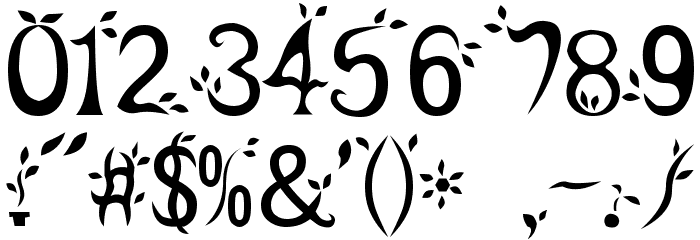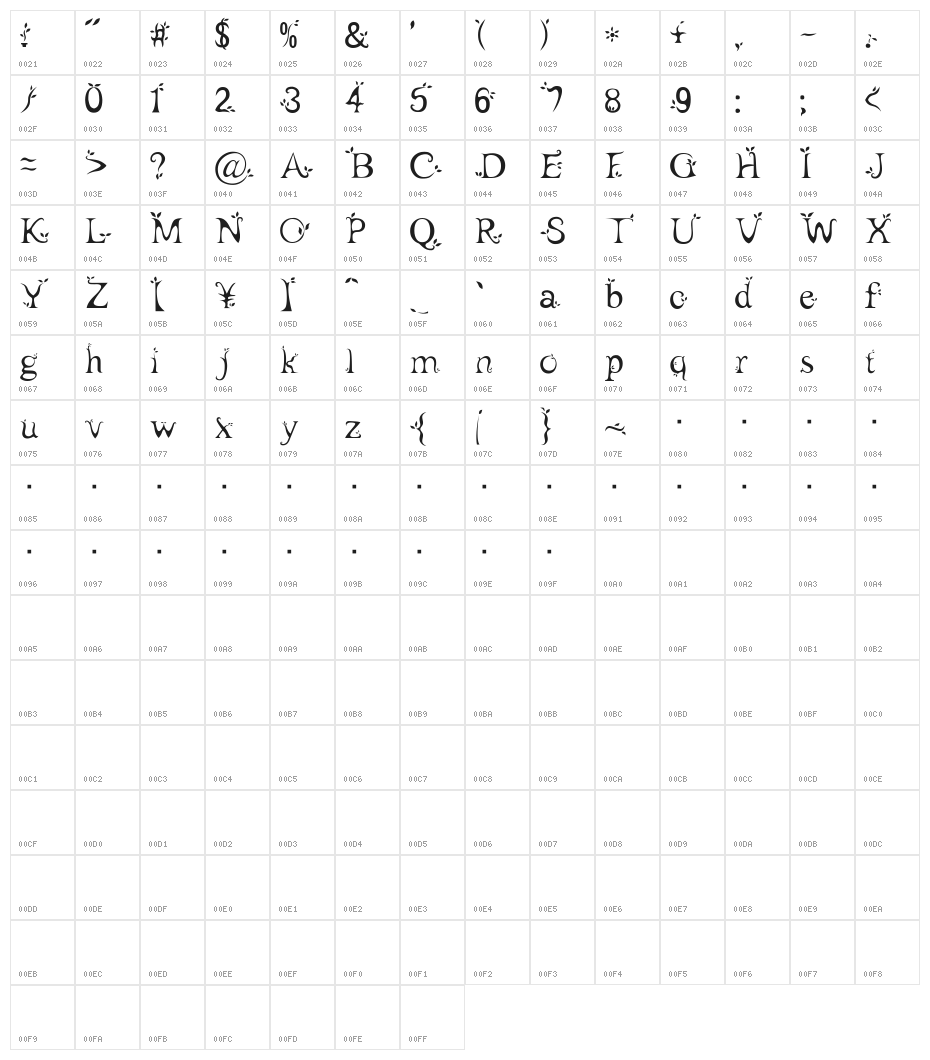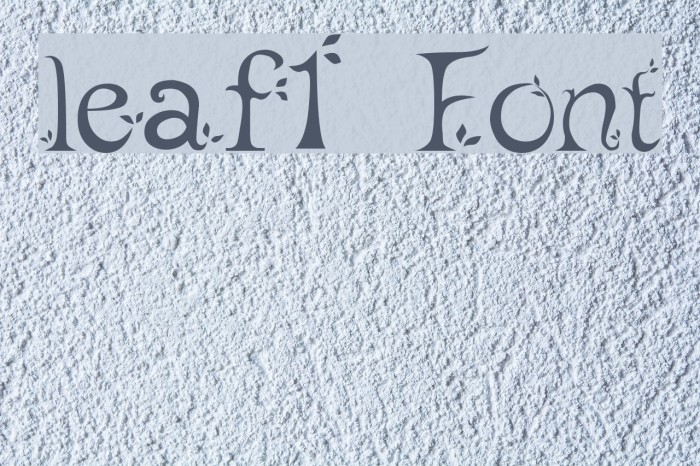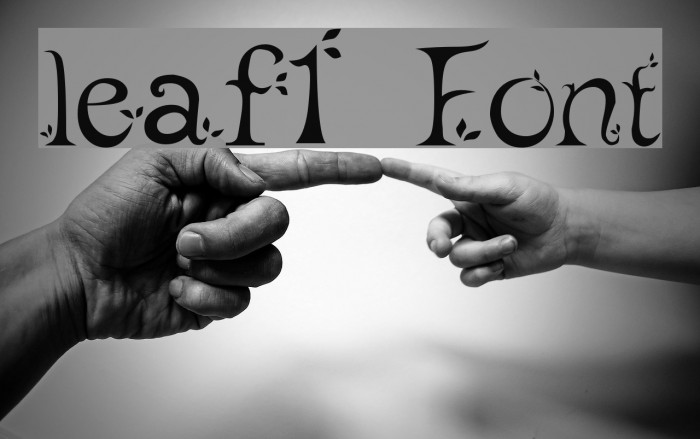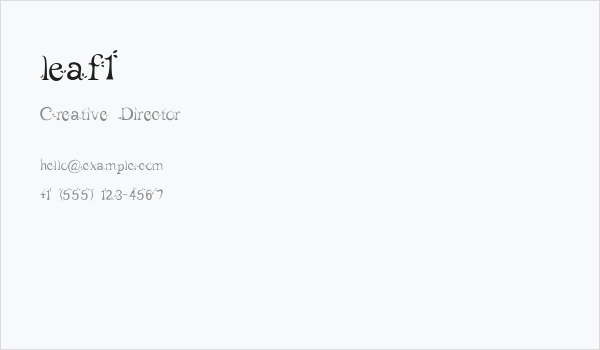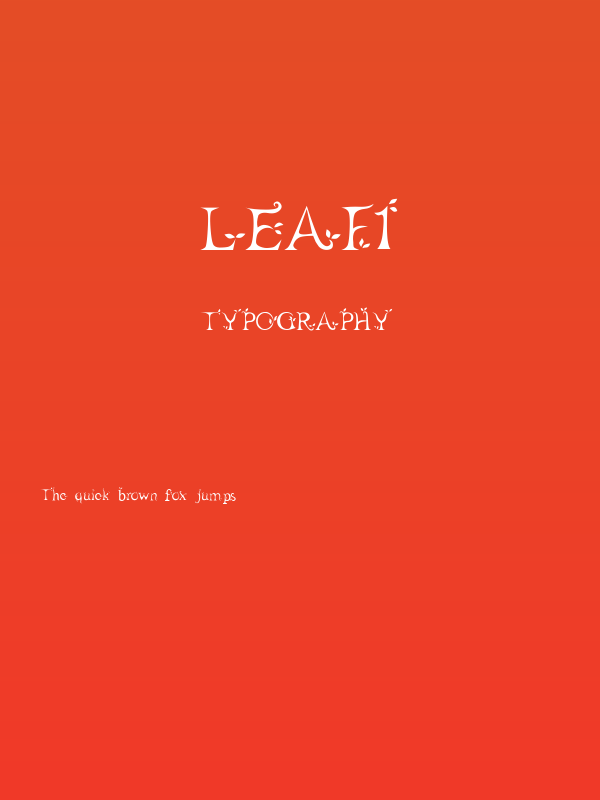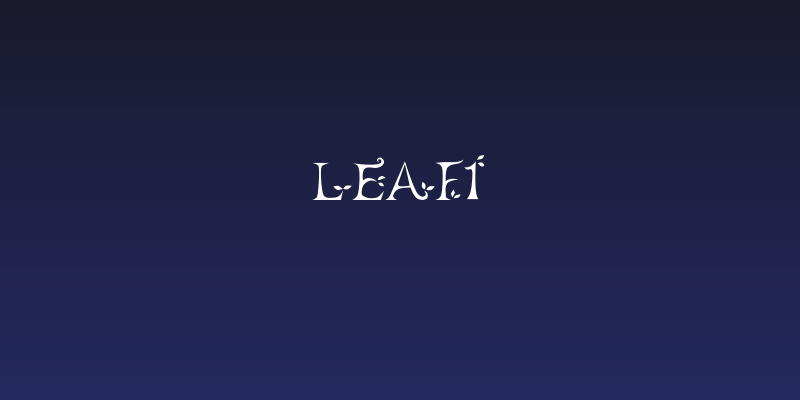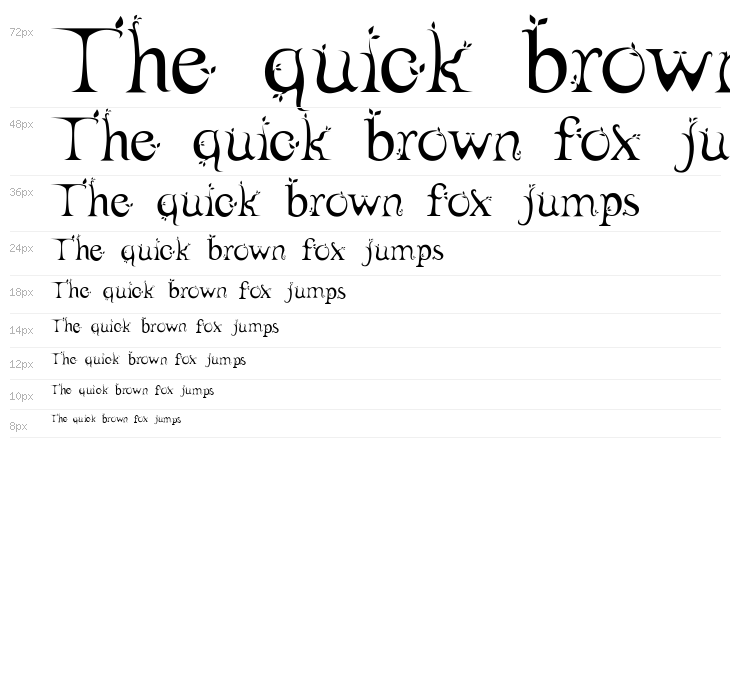
leaf1 Font
leaf1 Description
This decorative font features intricate leaf motifs integrated into each character, creating a whimsical and organic appearance. The letters are adorned with small, stylized leaves that extend from various points, adding a natural and artistic flair. The overall design is playful yet elegant, making it suitable for projects that require a touch of nature or fantasy. The font maintains a consistent style across uppercase, lowercase, numerals, and special characters, ensuring a cohesive look. Its unique embellishments make it stand out, perfect for creative and themed designs.
| Use Case | Headlines, Logos, Artistic projects |
| Proposed Projects | Ideal for nature-themed invitations, eco-friendly branding, fantasy book covers, and artistic posters. |